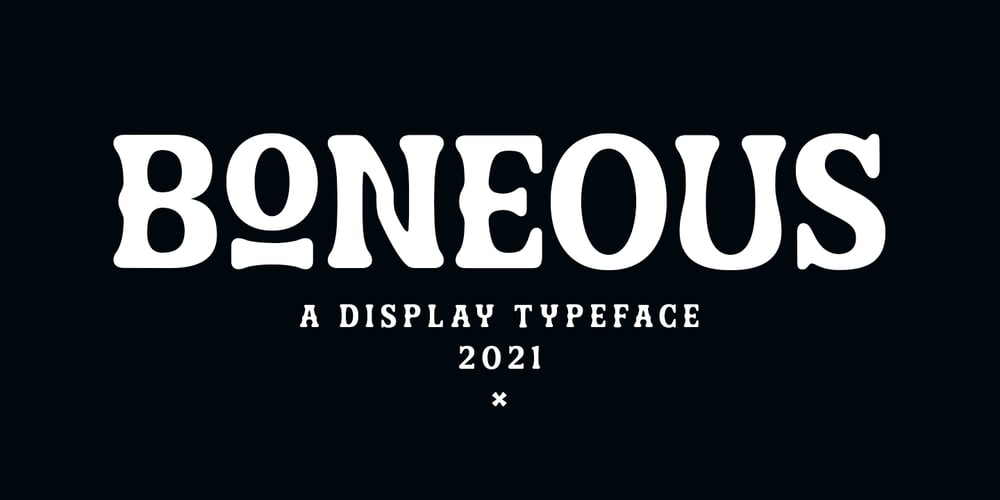
Boneous Font Family was designed by Bagas Ardiatma and published by Trustha. Boneous contains 2 styles and family package options. Boneous is a display font. Inspired by the shape of the bones. Comes in two font styles, regular and oblique.Boneous comes with 400+ glyphs, which also includes multilingual languages. It’s perfect for headlines, branding, and many more.